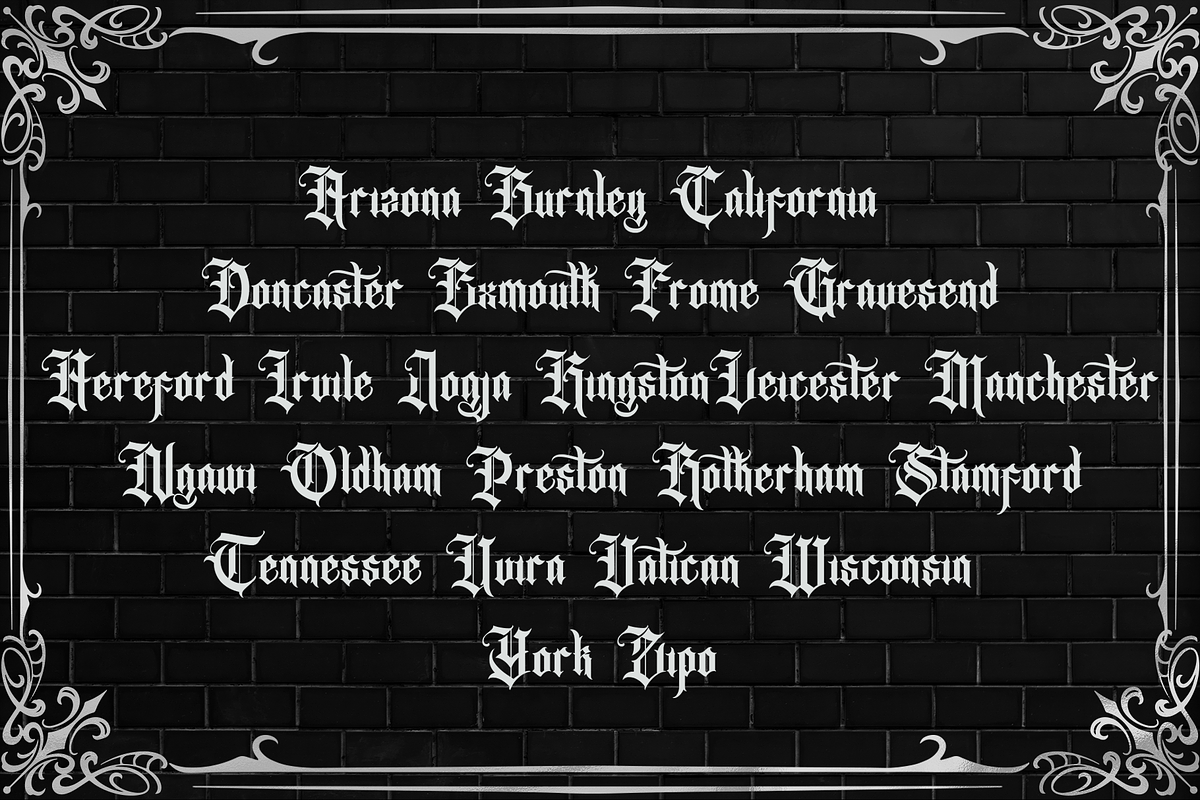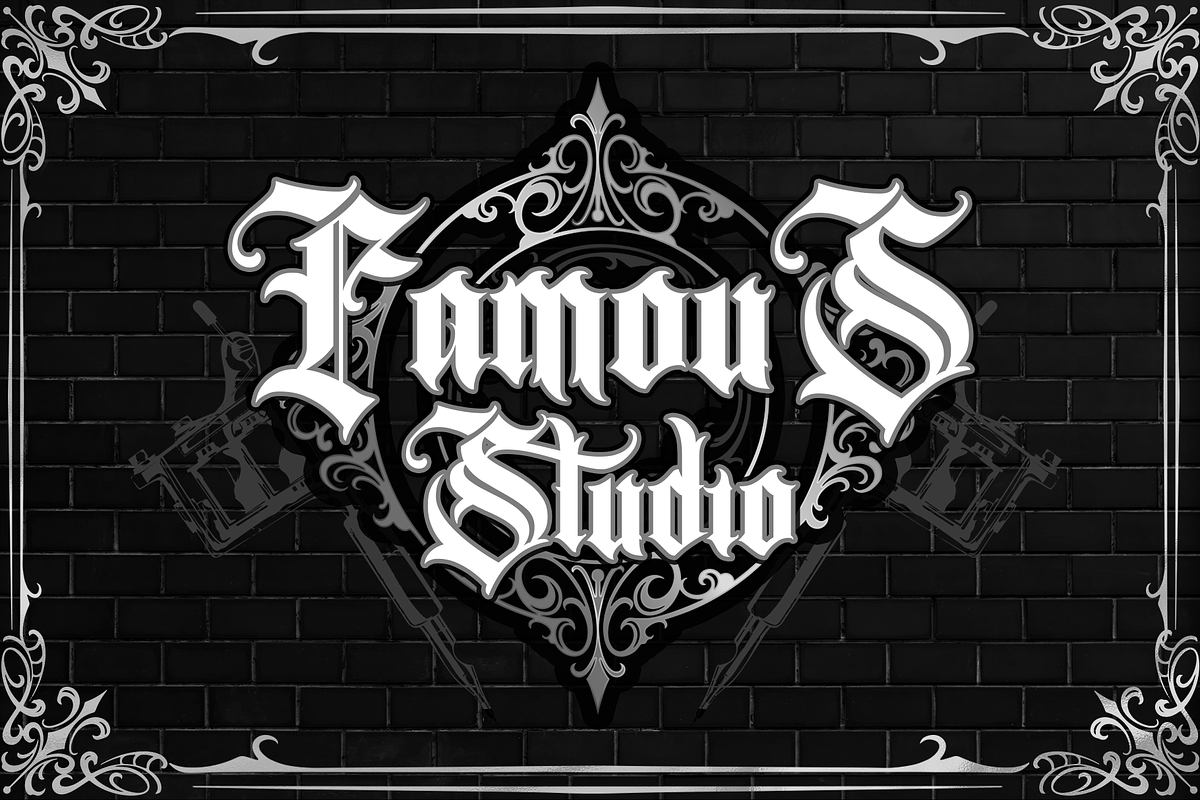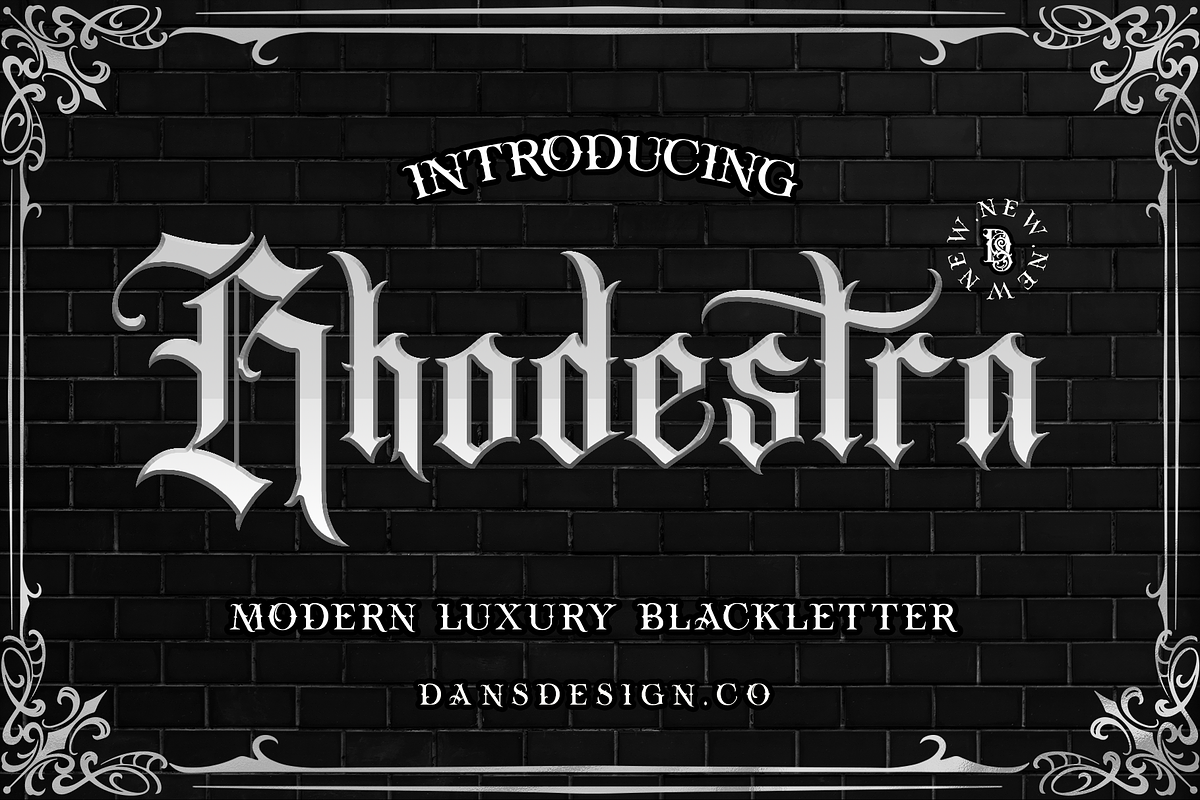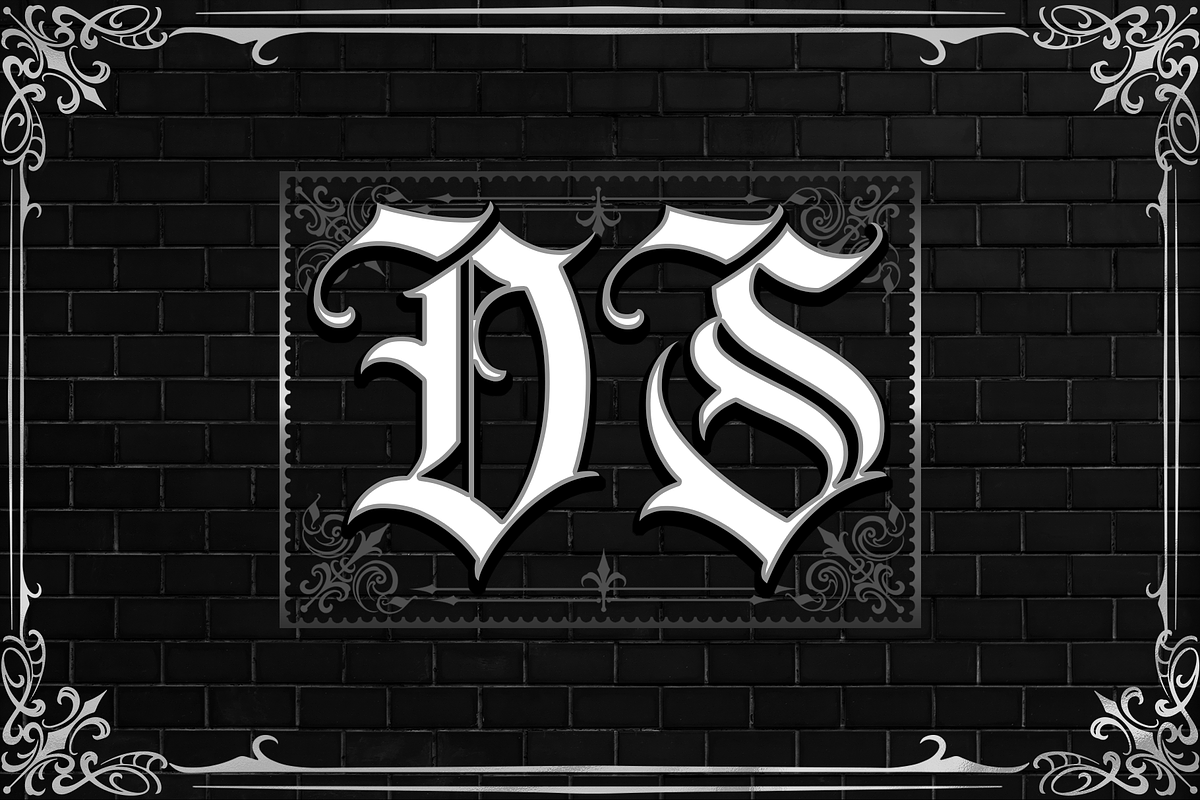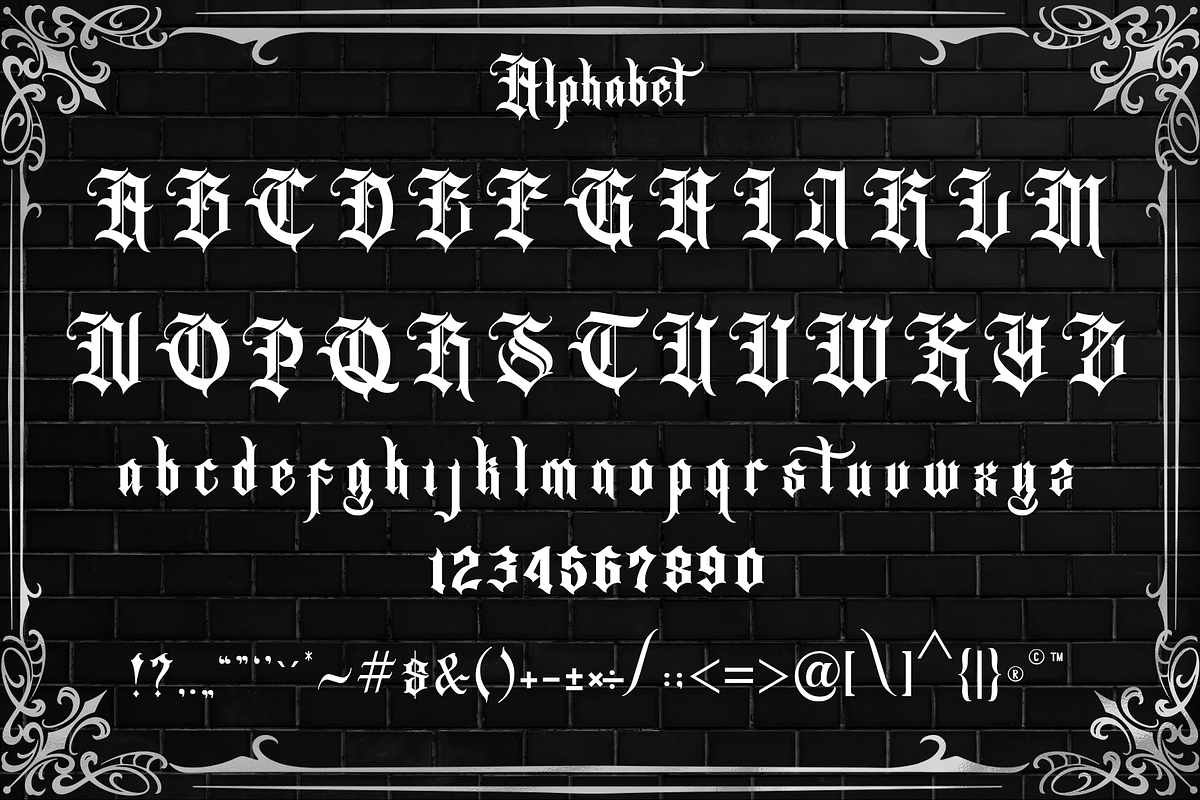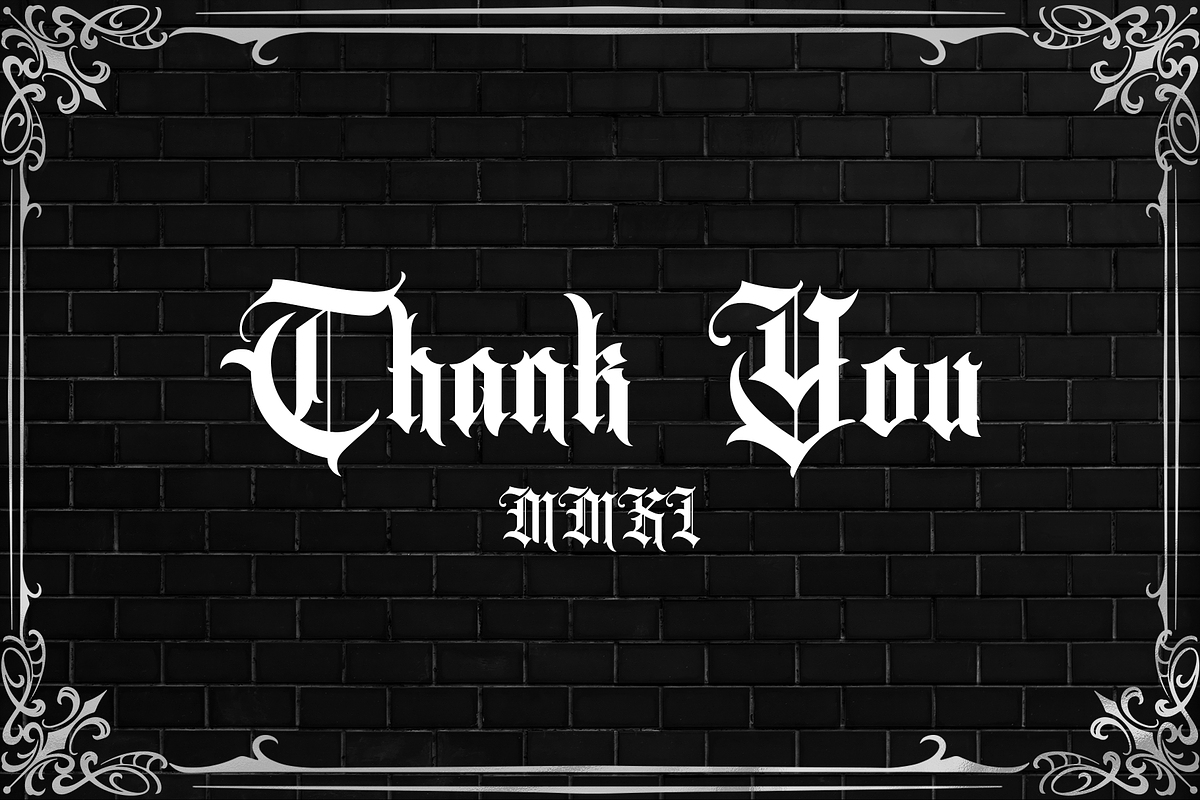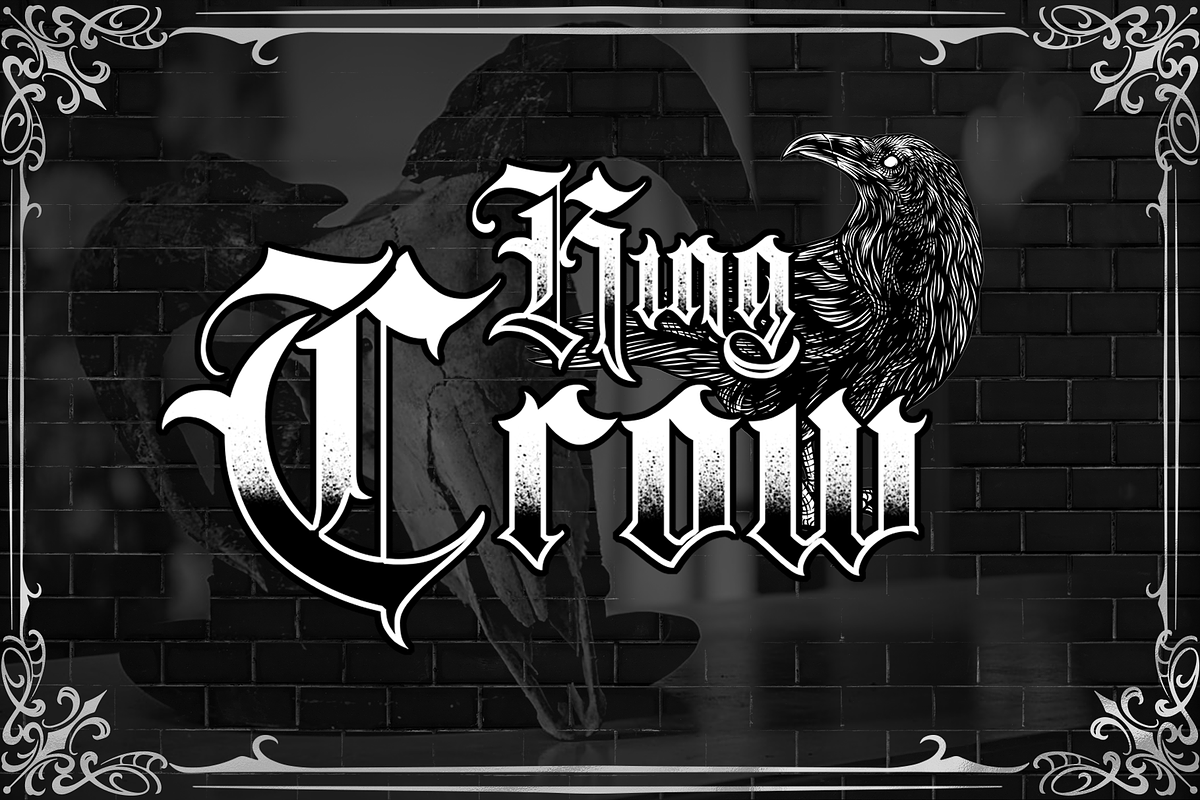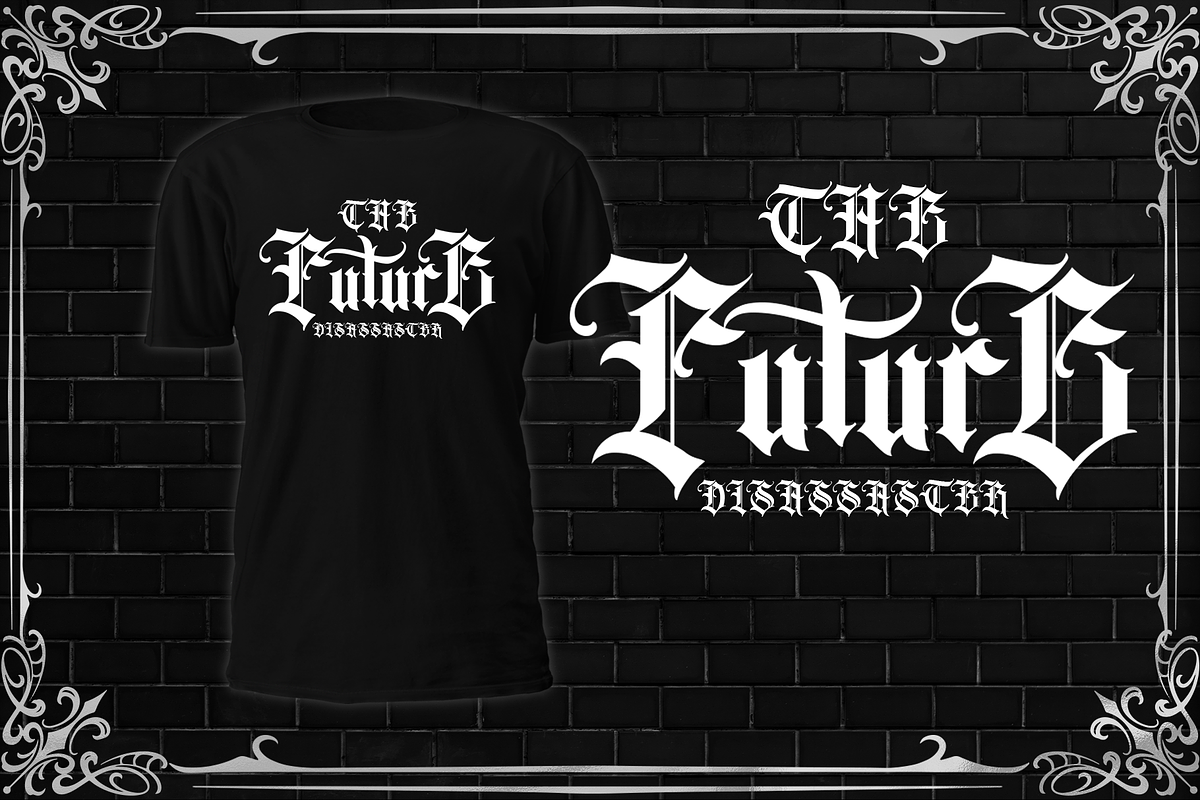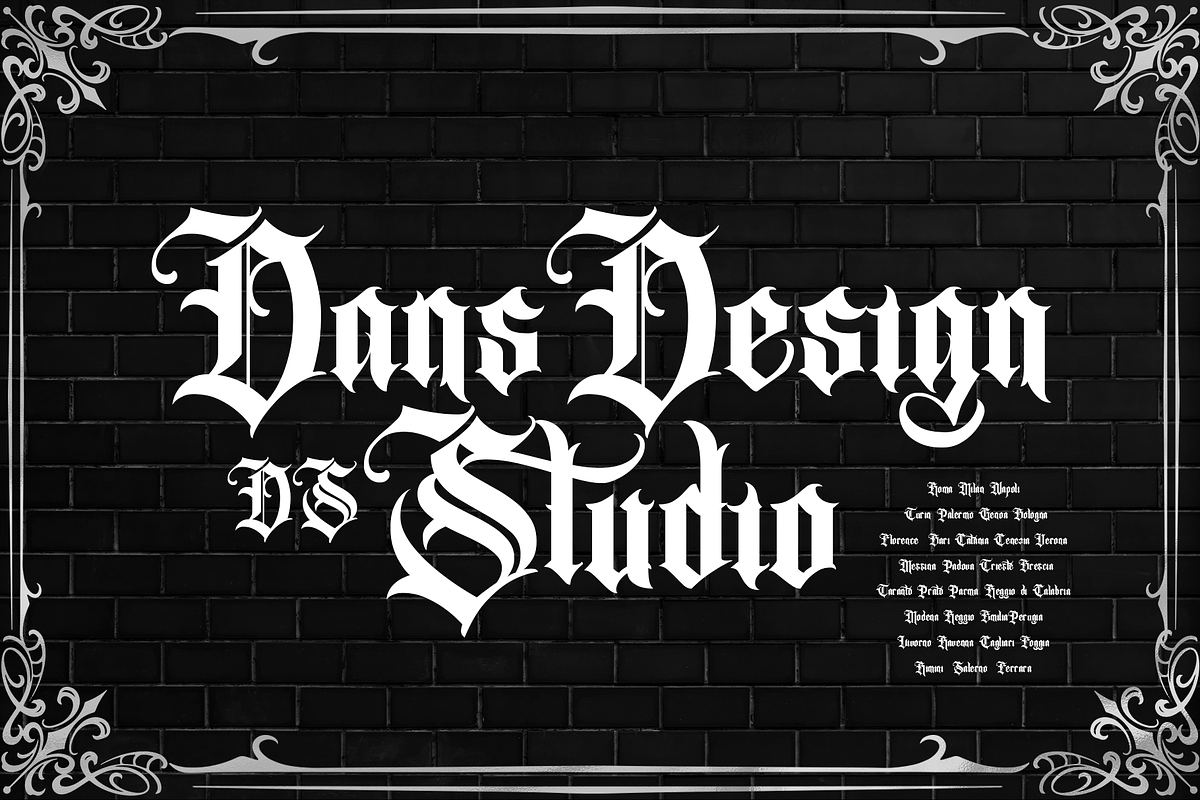
Rhodestra Blackletter
Dansdesign Proudly present our new product Rhodestra This font is made with references to various Blackletters that I combine and design with my style.
- Rhodestra are great and usefull for product logo, poster title, headline, packaging, badge, card logo, clothing brand logo, Vintage design, tattoo design and much more